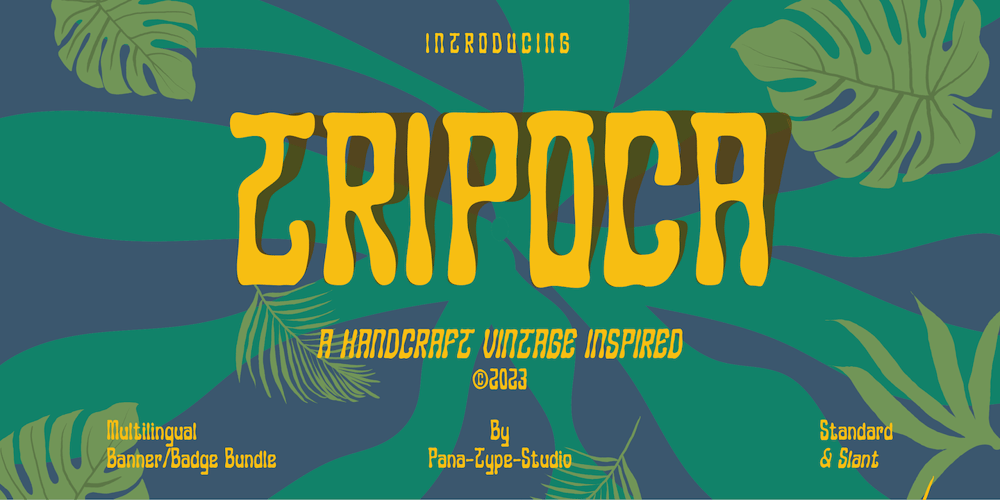
Tripoca Font Family was designed by Roland Hüse and published by Panatype Studio. Tripoca contains 2 styles and family package options. TRIPOCA is a Handcraft Vintage inspired typeface with tropical summer vibes, come with 2 family style ( Regular, Slant ) Plus FREE Illustrations & Borders which is perfect for your designs that want a rough style, modern vintage, tropical, summer and carefully crafted for all graphic design needs.